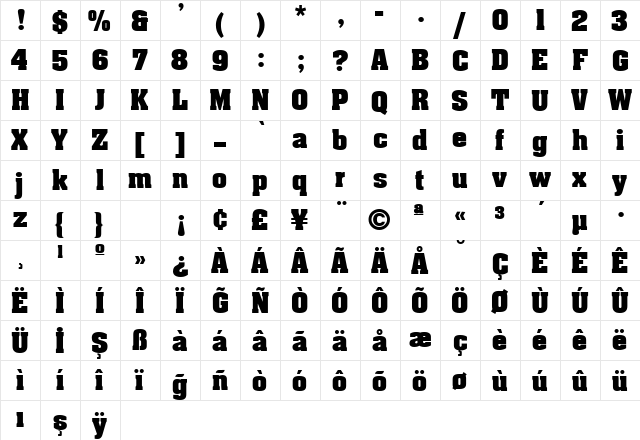
TR Aardvark Bold
Design Context for TR Aardvark Typeface
TR Aardvark offers clean, dependable letterforms without strong stylistic allegiance, making it a practical choice for designers who need flexibility. The heavy weight commands attention and anchors typographic hierarchies.
Pro Tip: Use TR Aardvark in both headline and body roles to test its range before committing to a single application.